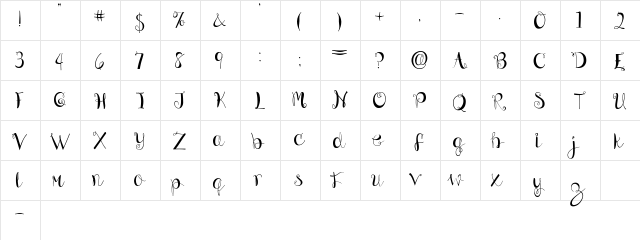
Grounding Regular
Design Context for Grounding Typeface
Grounding softens its letterforms with rounded terminals, giving it an approachable, friendly quality that works well in consumer-facing and digital contexts.
A natural fit for tech startups, health and wellness brands, children's products, and friendly consumer apps.
Font Pairing: Pairs well with a rounded or humanist sans for body copy, maintaining the friendly tone without relying on Grounding to carry extended reading.
Pro Tip: Pair Grounding with a geometric sans for a balanced system — the rounded softness works as a warm counterpoint to harder-edged companions.